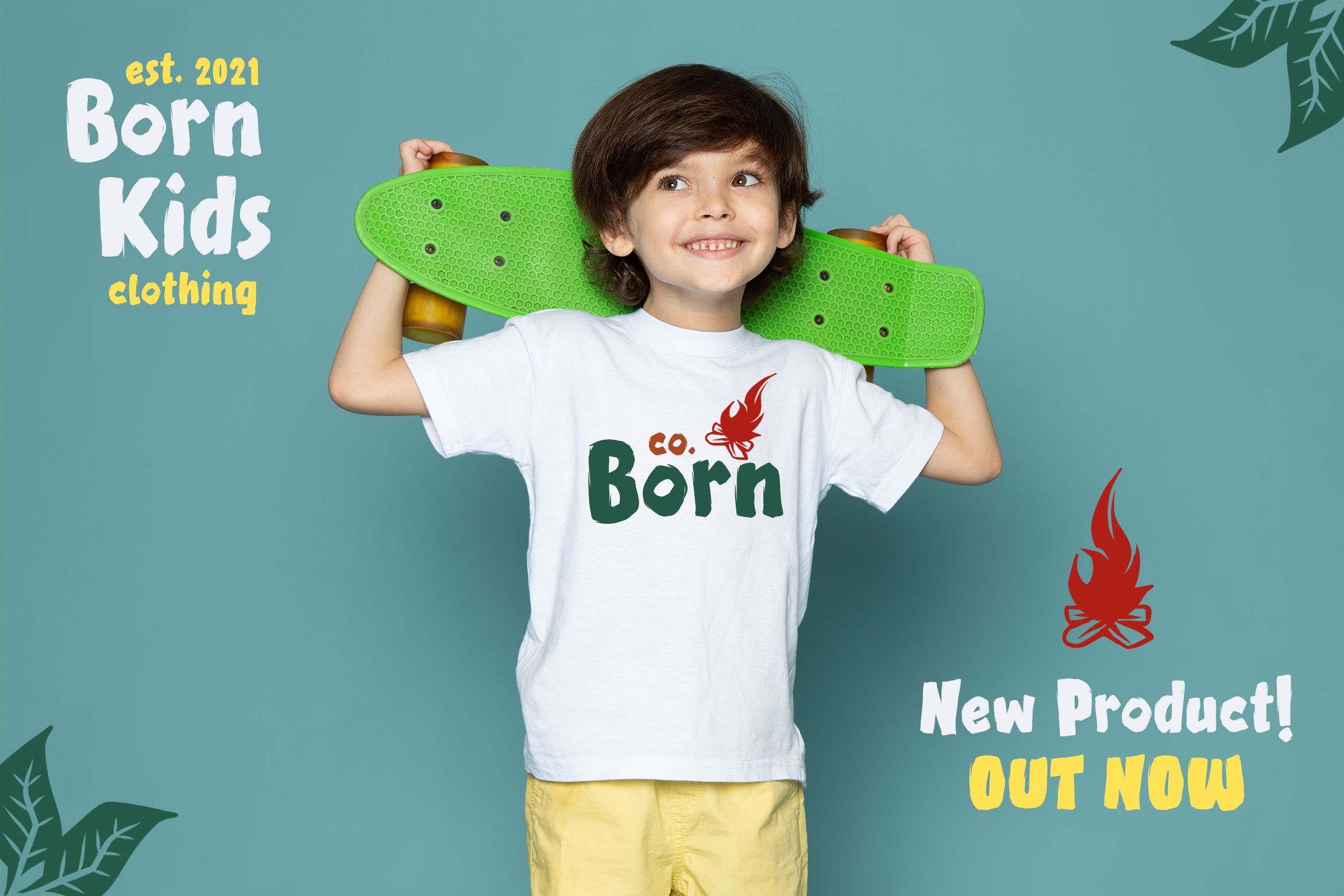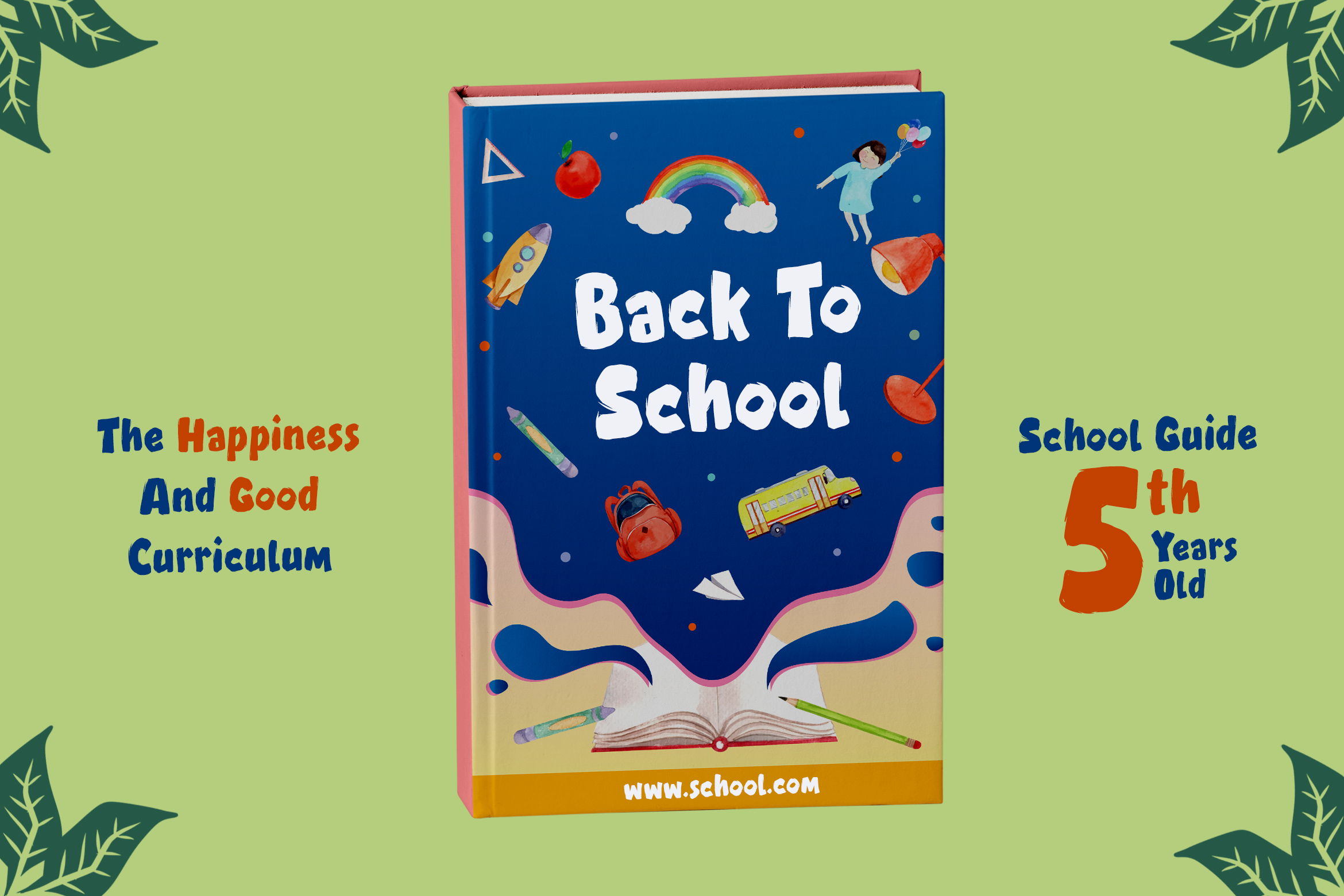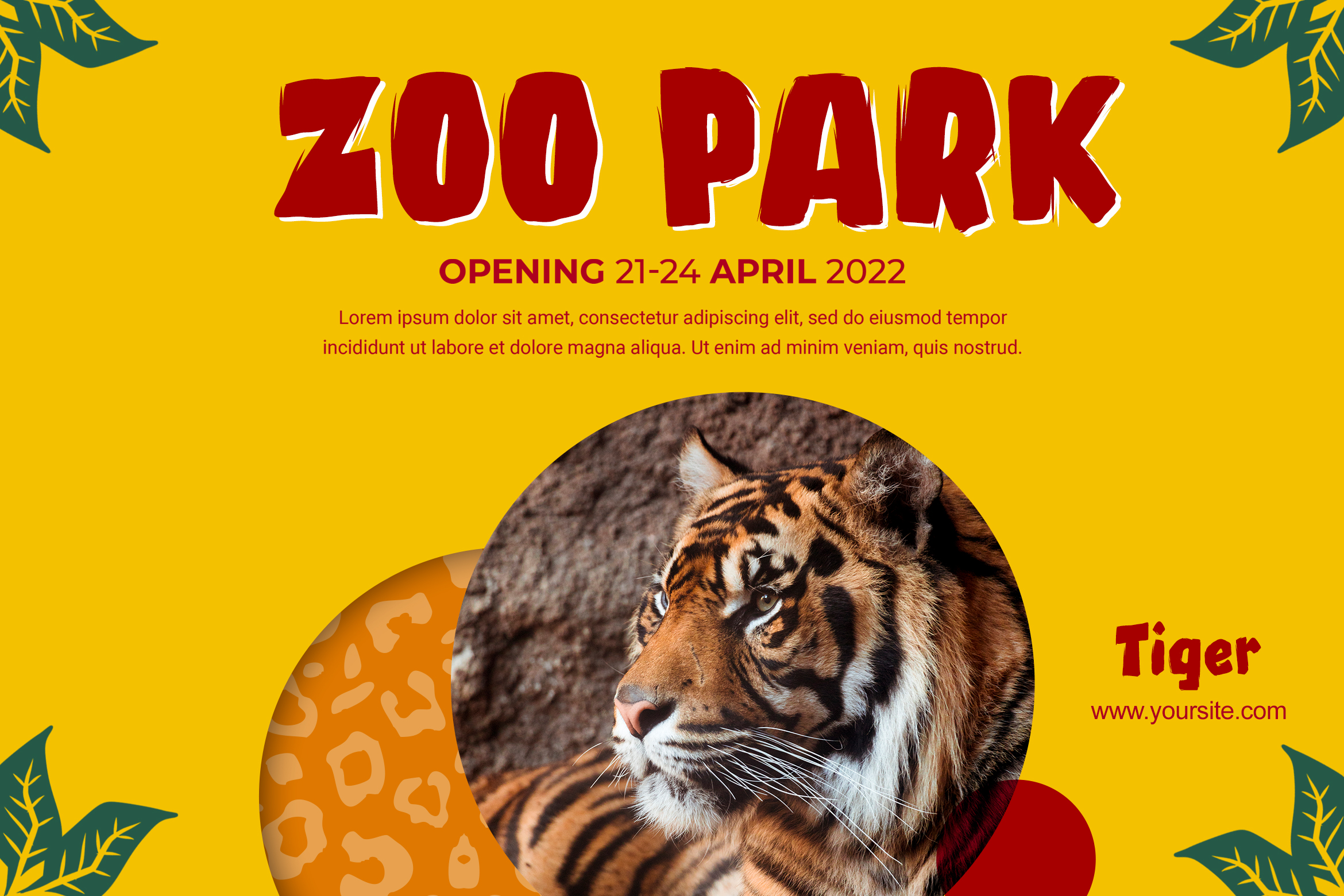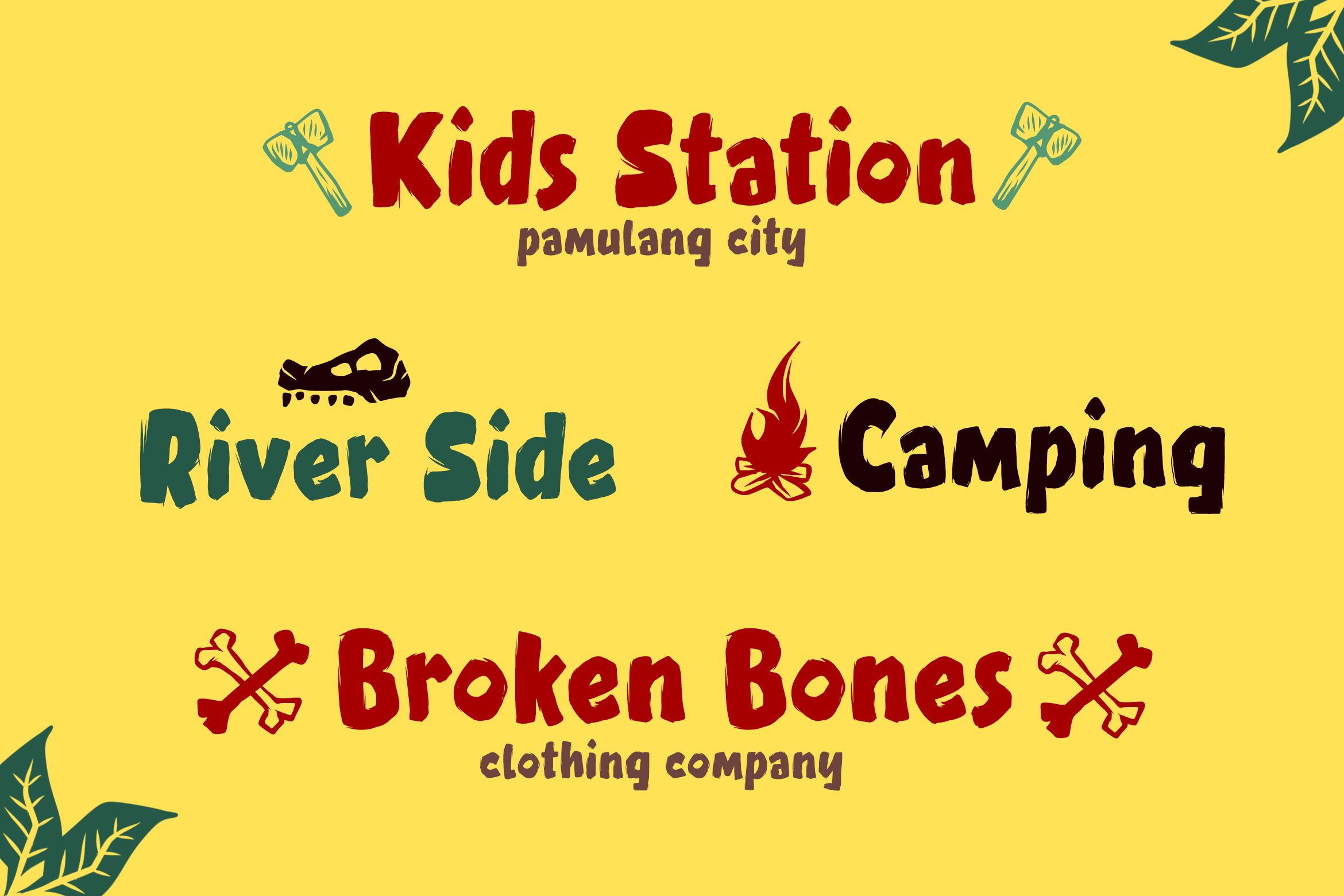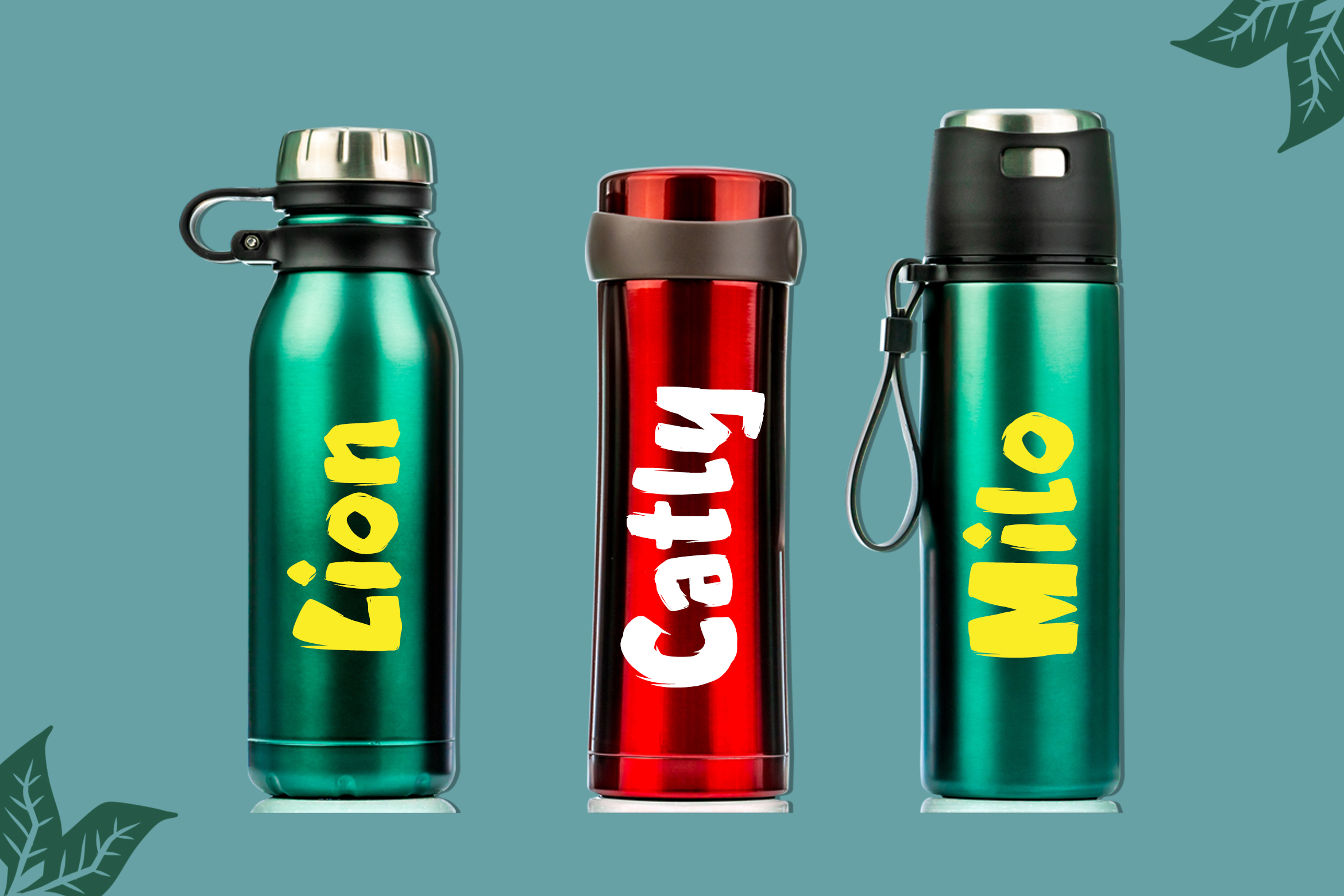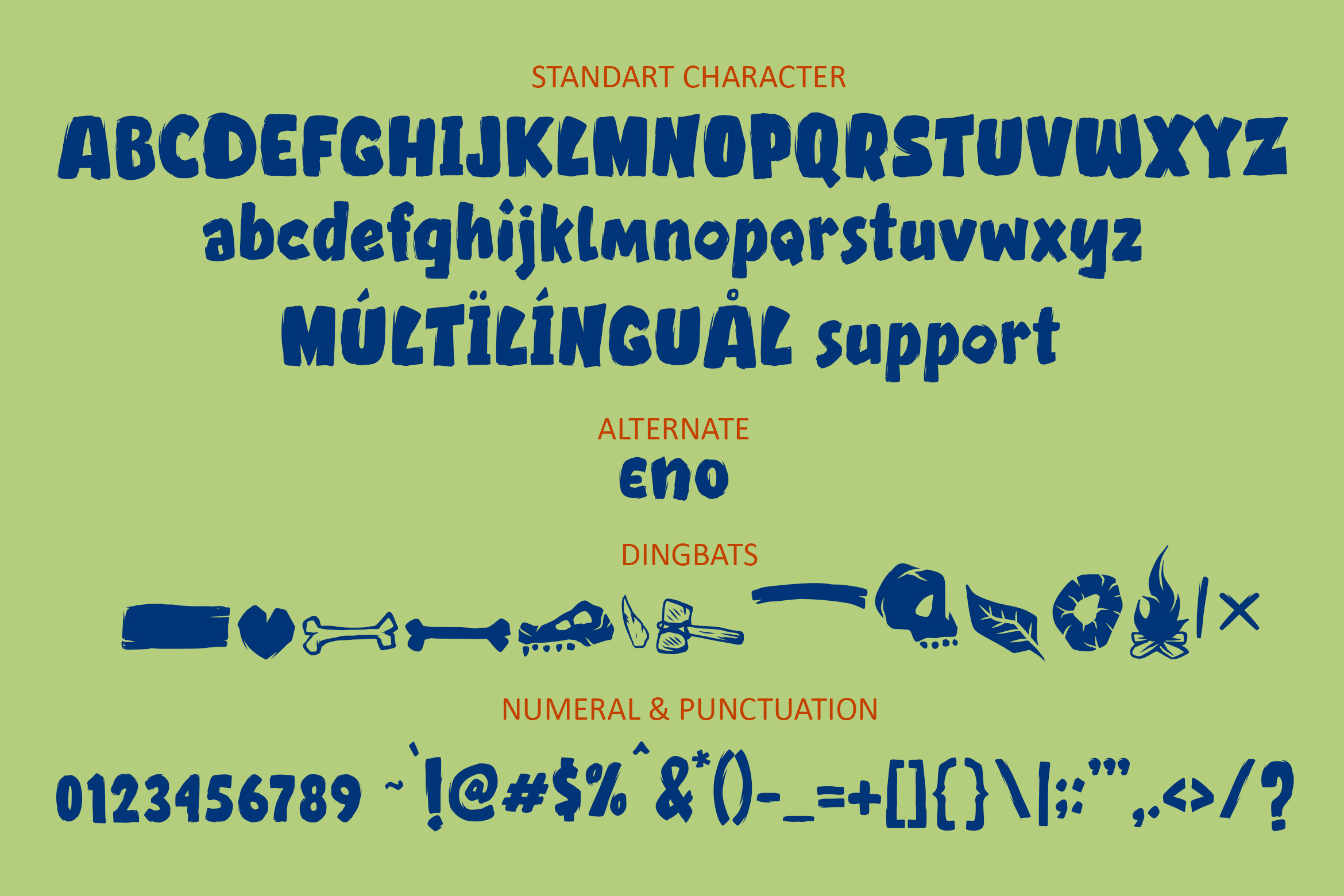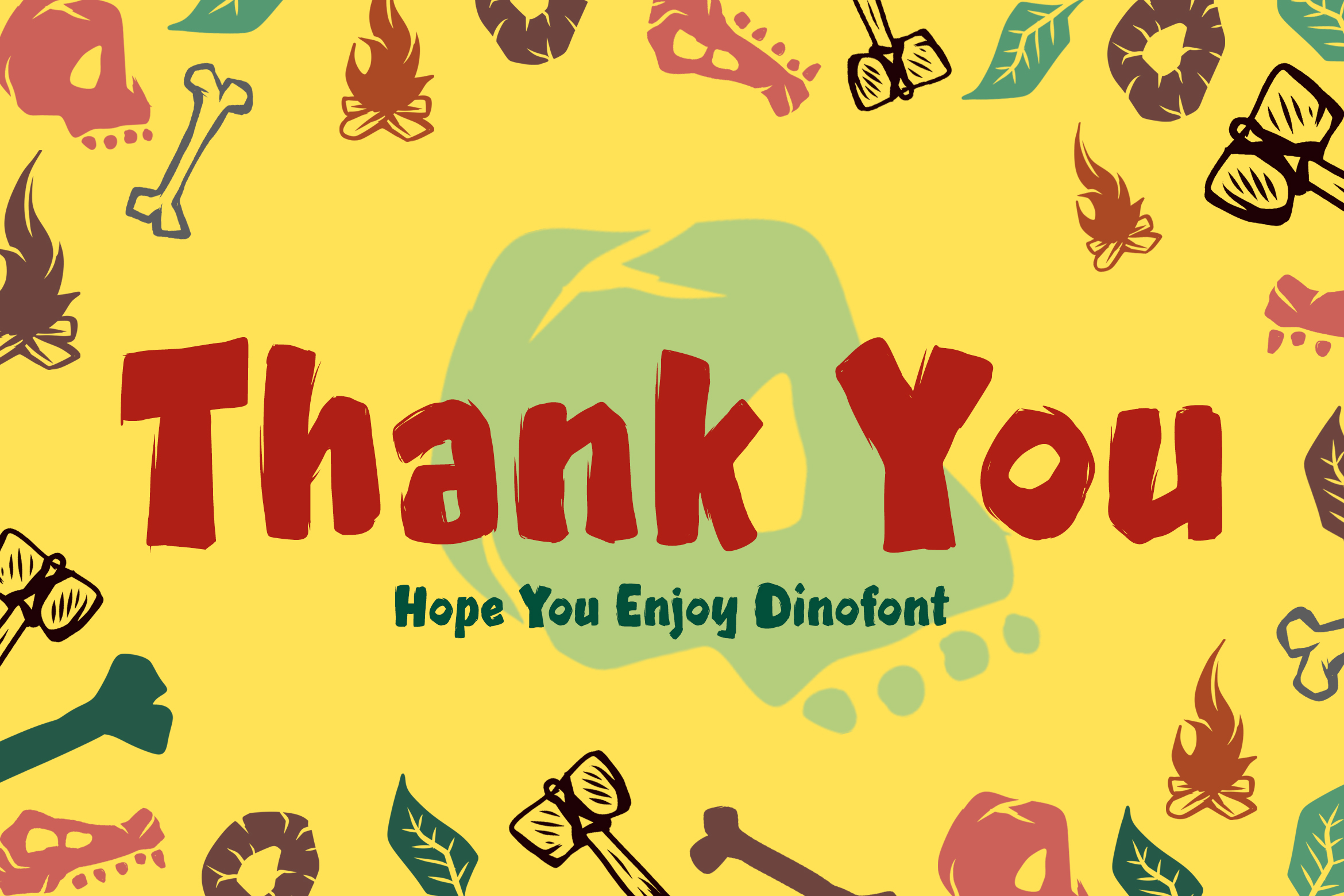
Dinofont
DinoFont is a playful, handwritten font that brings a touch of the prehistoric age to your designs. With rough, hand-drawn letterforms and bonus dingbats featuring dinosaur and caveman-themed icons, this font is perfect for children's projects, educational materials, fun posters, and packaging. DinoFont adds a charming and adventurous flair to any design, making it great for capturing imaginations with its bold, dynamic presence.